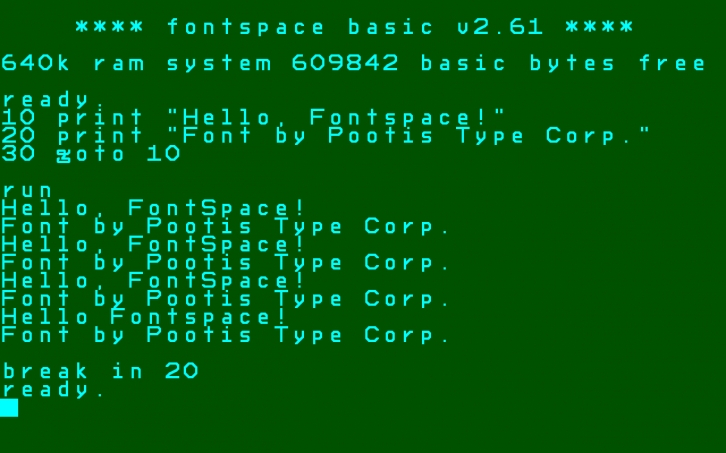
This is a retro-like font that I have created.
It supports the legacy symbols in Unicode (1FB00-1FBFF) as of Unicode 15.
When Unicode 16 comes, I might update it to support the extra set of legacy symbols, as well as symbols from other retro character sets.